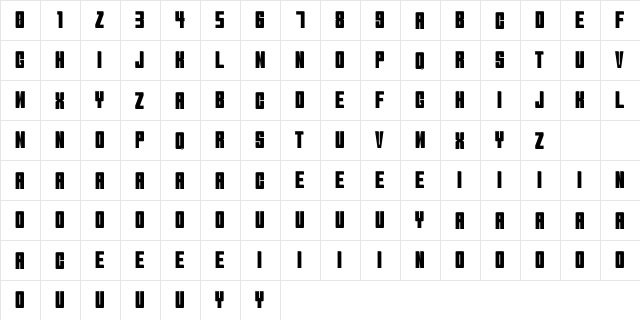
Brick Sans Bold
| Designer | John Decker |
Design Context for Brick Sans Typeface
Brick Sans offers clean, dependable letterforms without strong stylistic allegiance, making it a practical choice for designers who need flexibility. Its bold stroke weight gives it real presence on the page.